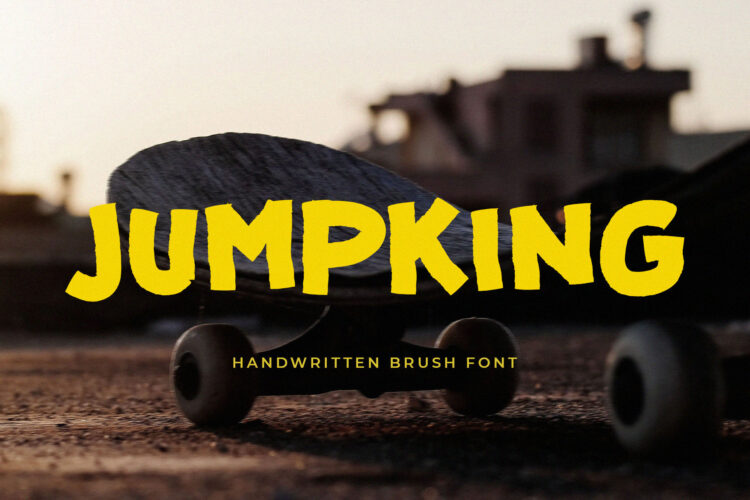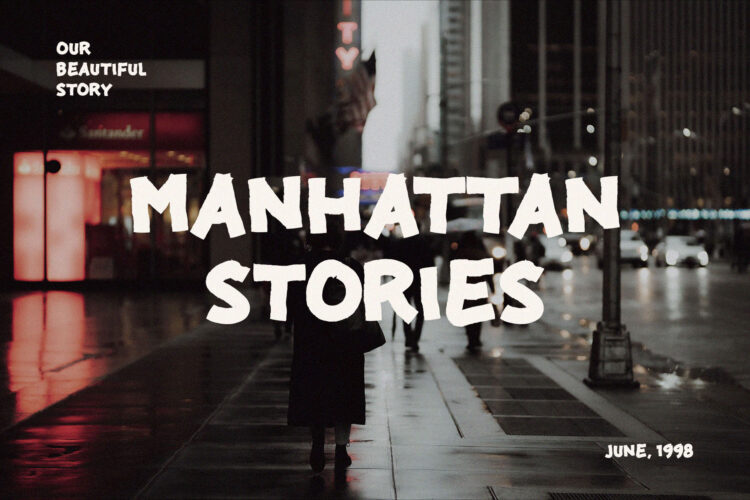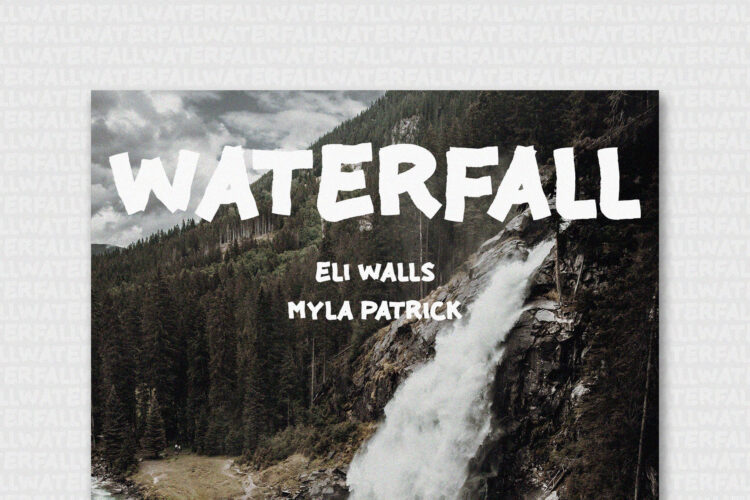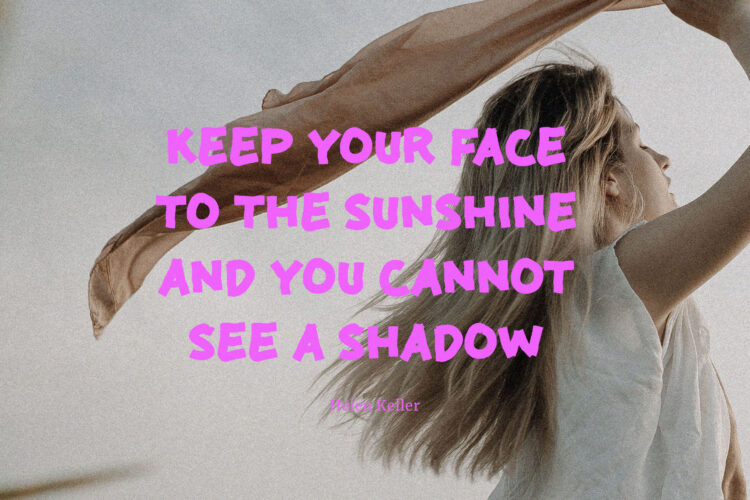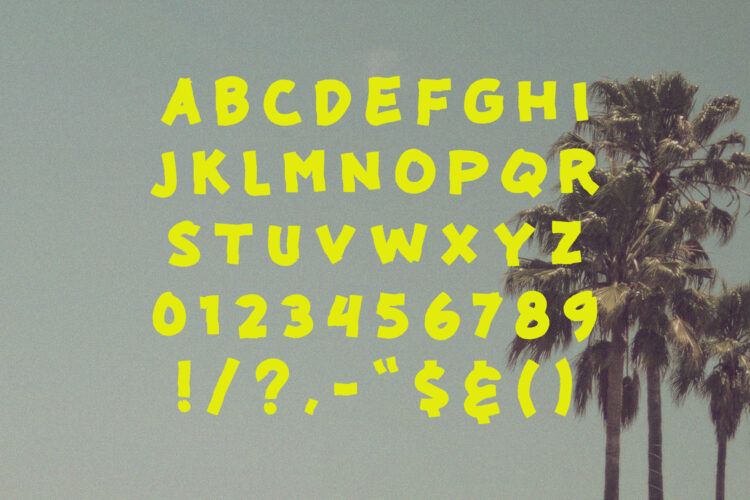
Introducing Jumpking Handwritten Brush Font.
Jumpking is a handwritten font with modern style. Best used as a display for headings, quotes, logos, branding, product packaging, invitations, etc.